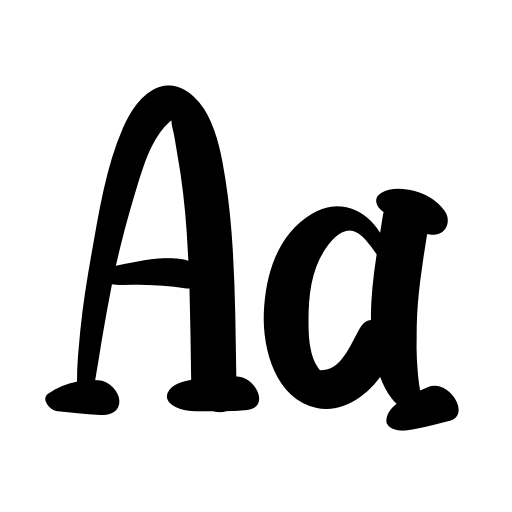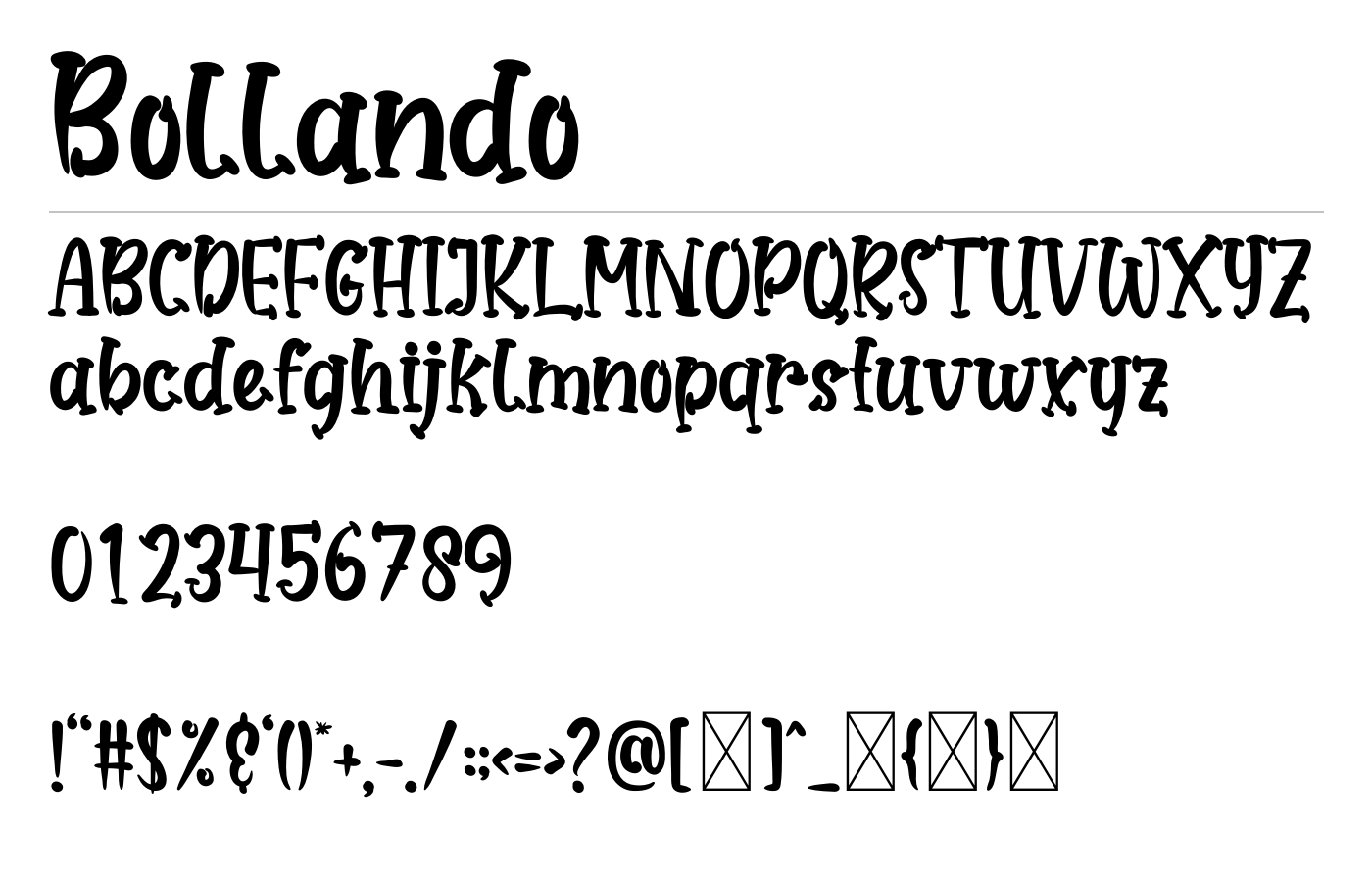
Bollando is a playful, handwritten-style font with rounded, thick strokes and a lively, informal feel. Its slightly condensed letterforms feature whimsical curves and quirky details, making it perfect for fun, casual designs like children’s books, creative branding, and friendly headlines. This font brings a warm, approachable personality to any project that needs a touch of charm and individuality.
Bollando Font